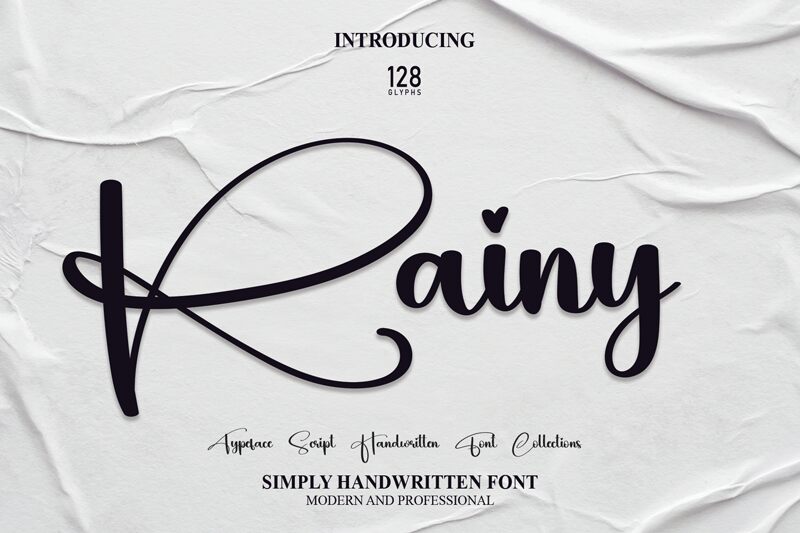
Rainy
Rainy, a captivating calligraphy font by Scratchones, exudes effortless charm with its semi-light weight. This elegant typeface brings a touch of sophistication to various projects, perfect for wedding invitations, delicate branding, and stylish social media posts. Rainy's graceful strokes and fluid curves add a romantic flair to any design, making it an ideal choice for love-themed websites, fashion magazines, and luxury product packaging. With its distinctive style, Rainy effortlessly elevates your creations while ensuring maximum online visibility. Let this enchanting font transform your designs into works of art that leave a lasting impression.
The latest style letters are perfect for wall displays, wedding invitations, social media post logos, advertisements, product packaging, product designs, labels, photography, watermarks, invitations, stationery, and any project that requires taste handwriting.